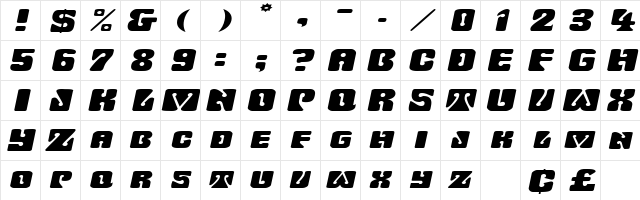
WavyOrnamentalExtended Oblique
Design Context for WavyOrnamentalExtended Typeface
WavyOrnamentalExtended brings ornamental detail and strong personality to headlines and identities, where visual impact matters more than quiet functionality. Its italic angle brings a sense of urgency and motion to the letterforms.
Font Pairing: Pair with a clean neutral sans-serif for body copy to let WavyOrnamentalExtended's character lead without overwhelming the composition.
Pro Tip: Treat WavyOrnamentalExtended as the centrepiece of your typographic hierarchy. One strong heading set in a decorative face can carry an entire layout.